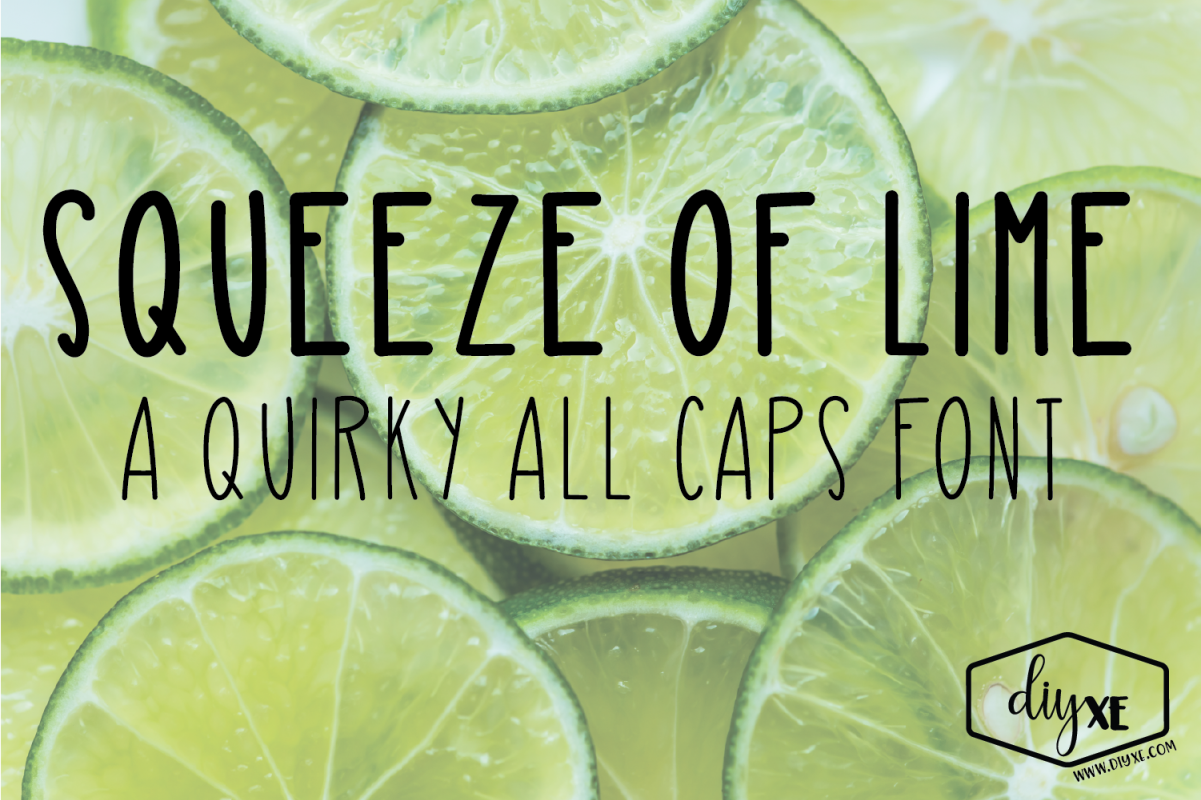
Squeeze Of Lime
Squeeze Of Lime is a quirky all caps font that includes both bold and regular typeface. This font is perfect for SVGs, posters and so much more!